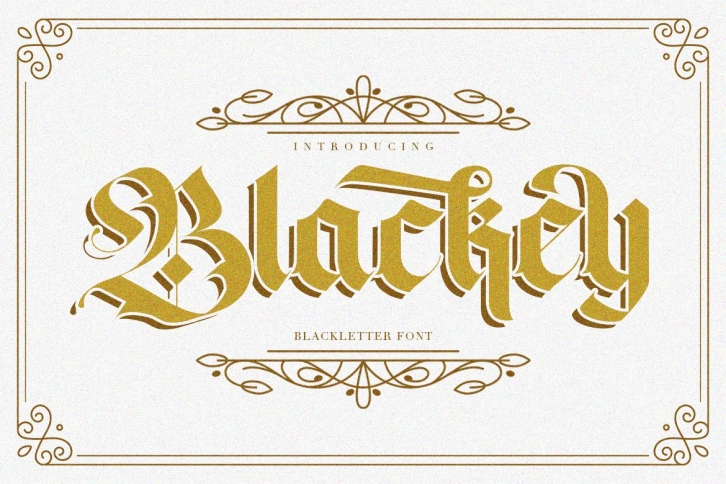
Blackey Blackletter is a trendy and unique font with an authentic style. It was designed by Maulana Creative and it's a great choice for creative people who need such a font. It was released on February 29, 2020 and the file size is 16.13 MB. Blackey Blackletter will add an organic vibe to any design idea!